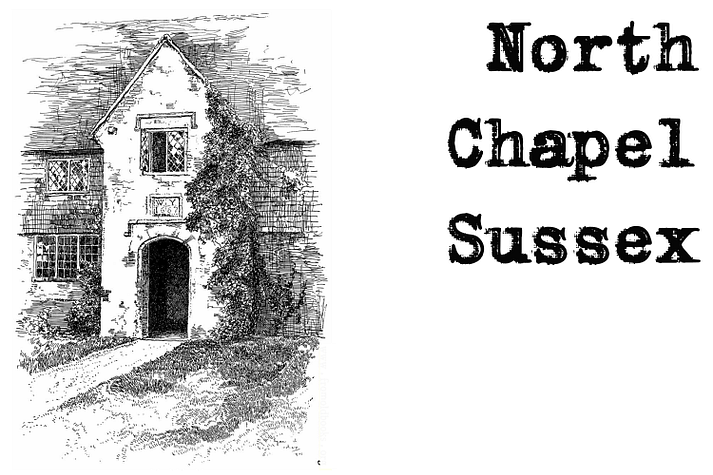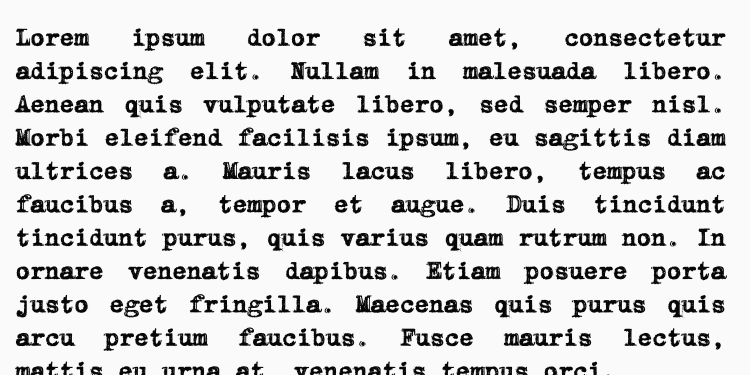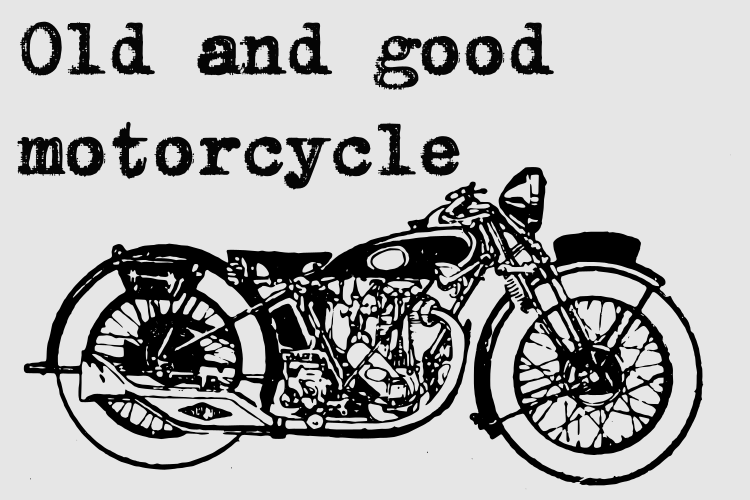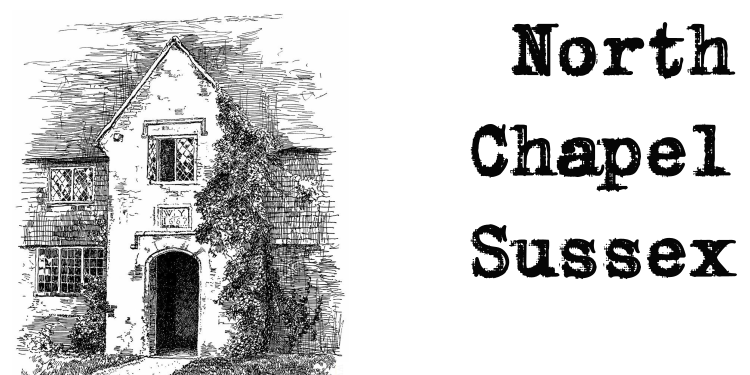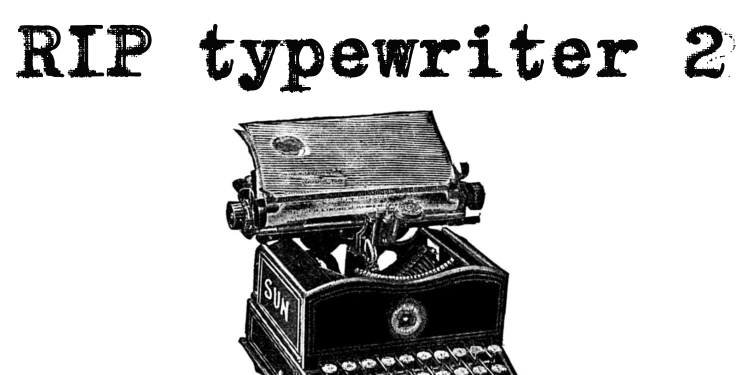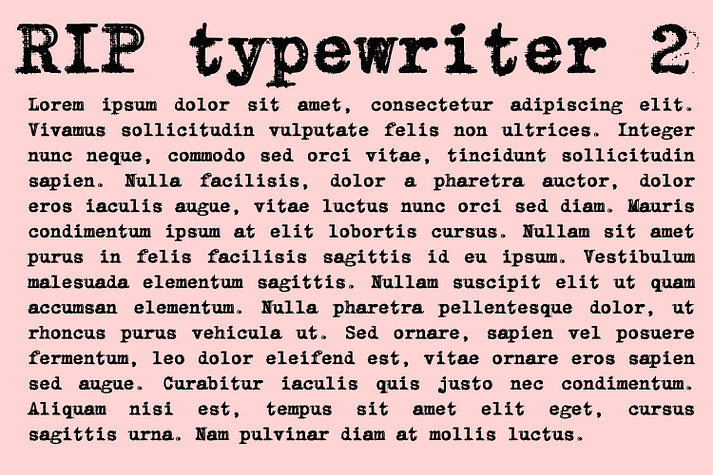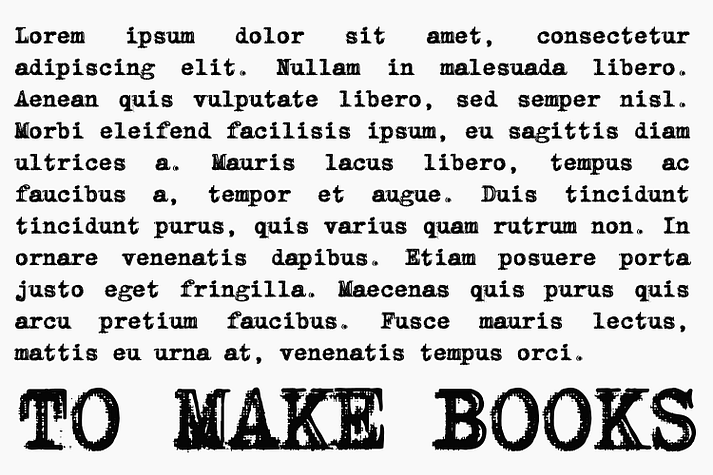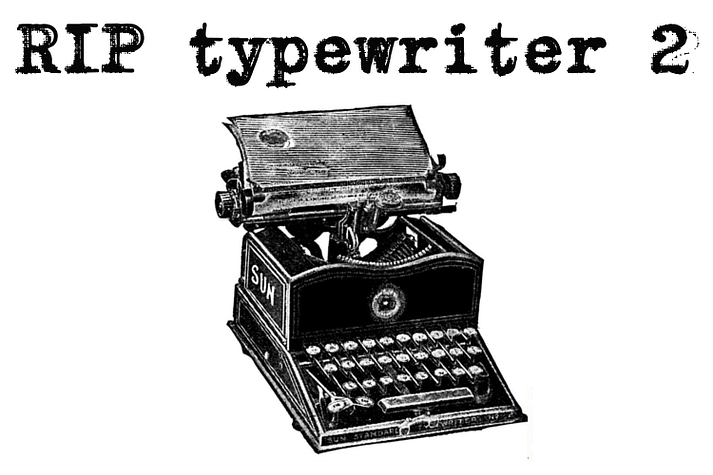
RIP Typewriter
Designed by Paulo W, RIP Typewriter is a display serif and typewriter font family. This typeface has two styles and was published by Intellecta Design.
The RIP Typewriter is an unique typewriter font design, great for mimicking the effect of type writing older machines. Has a erased and much inked style, good for exquisite designs. PACK WITH TWO FONT STYLES